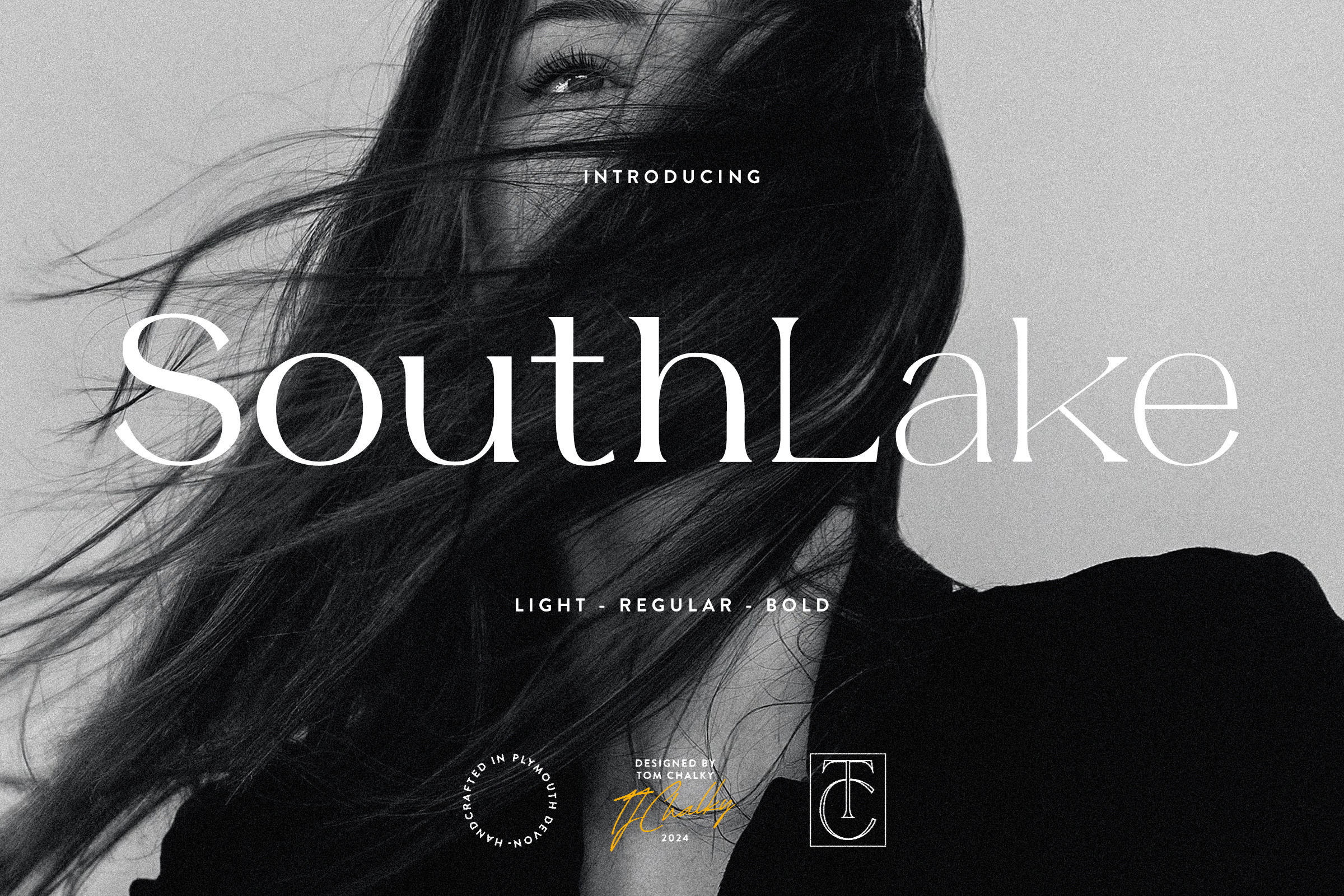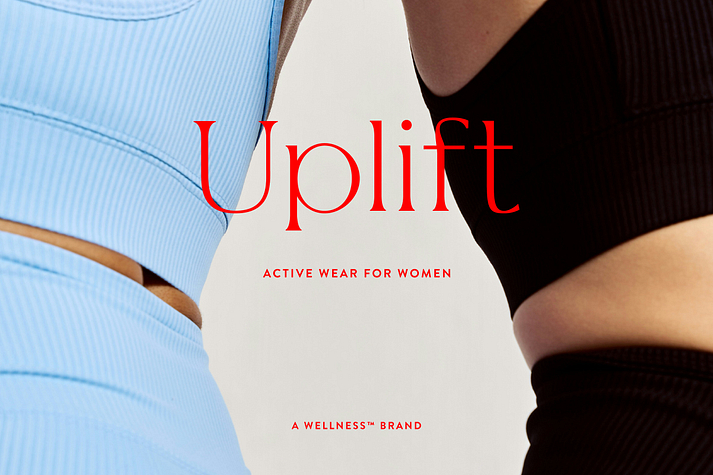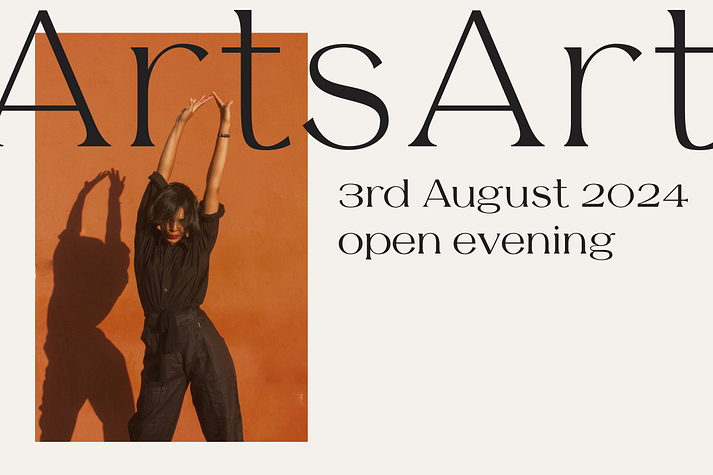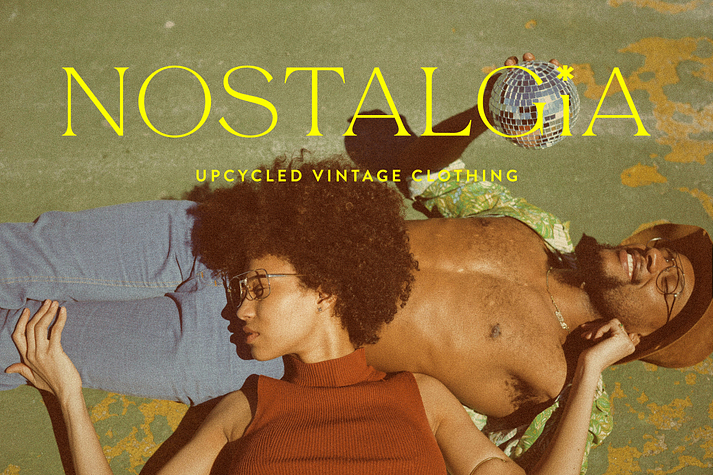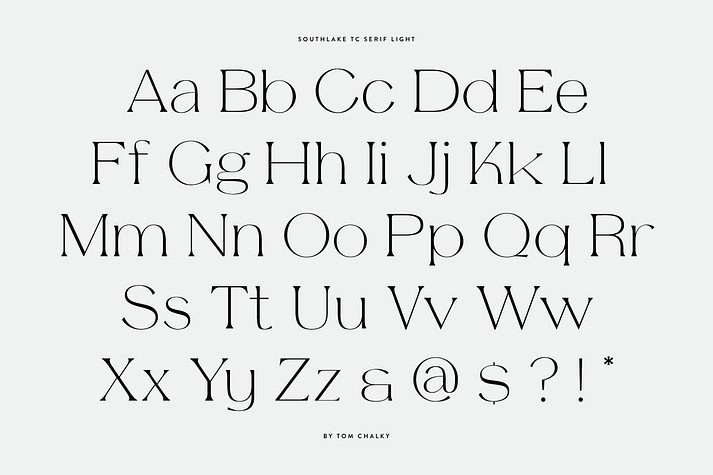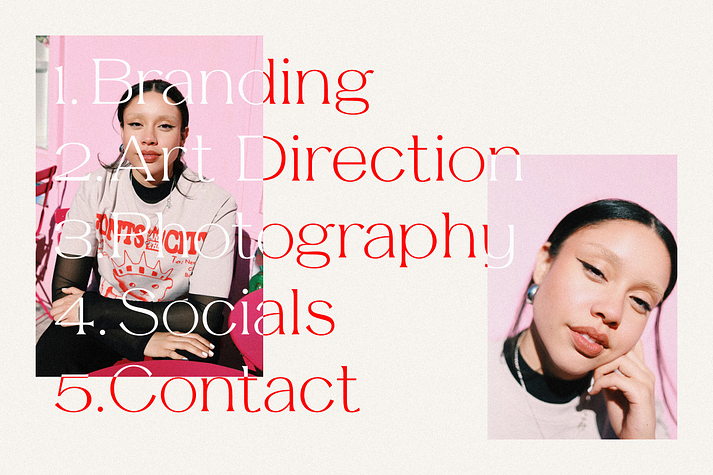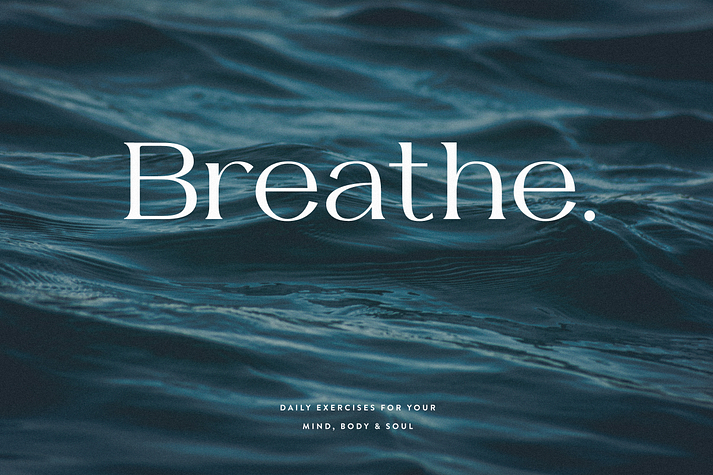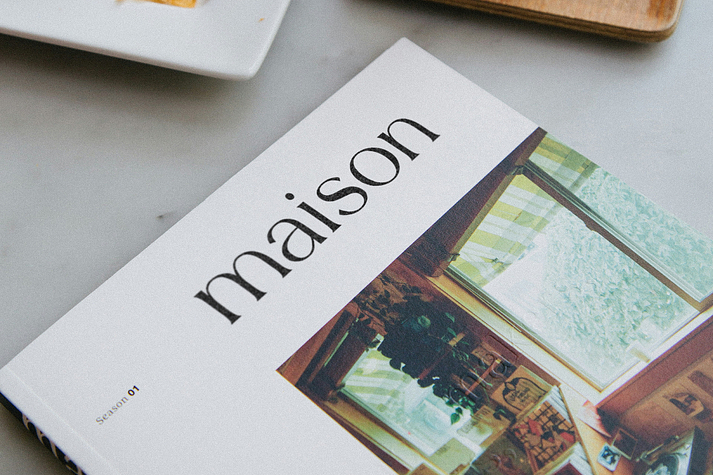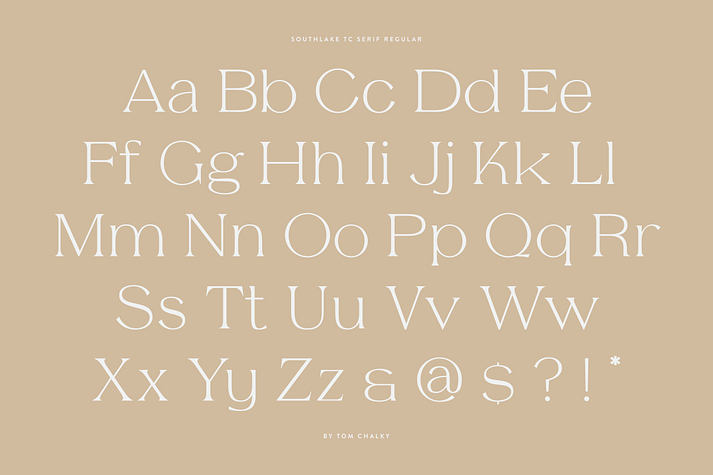
Southlake
Southlake is a serif font family. This typeface has three styles and was published by Tom Chalky.
Introducing Southlake, your new favorite modern serif font that exudes elegance and timeless appeal. Perfectly suited for a wide range of stylish design projects, this typeface blends a classy demeanor with generous proportions to make a bold statement.
Ideal for headlines, luxury branding, and editorial designs, Southlake shines when given space to breathe. With its refined appearance, this font family stands out, conveying trust, sophistication, and creativity.
• Elegant Serif Typeface
• Three Weights; Light, Regular, and Bold
• Multilingual Support (Latin 1 Glyphs)